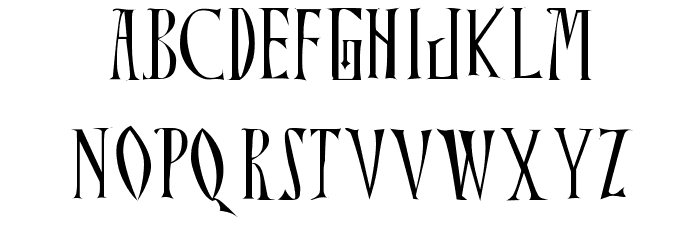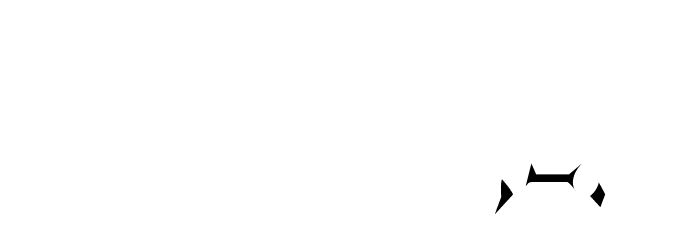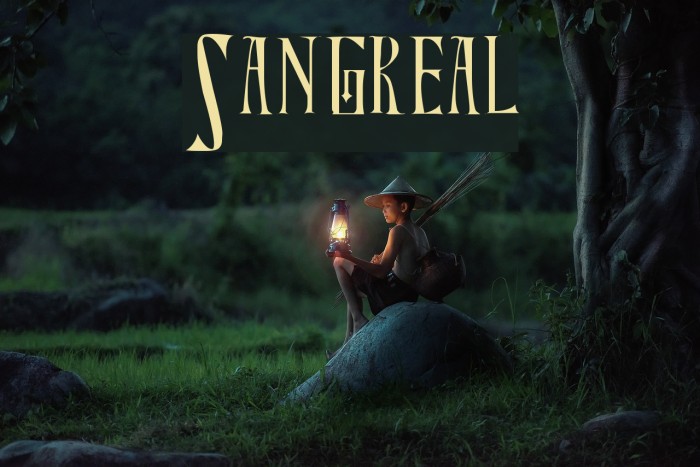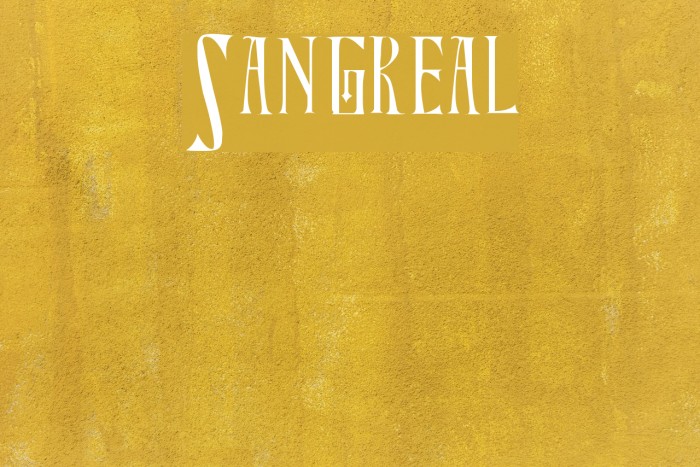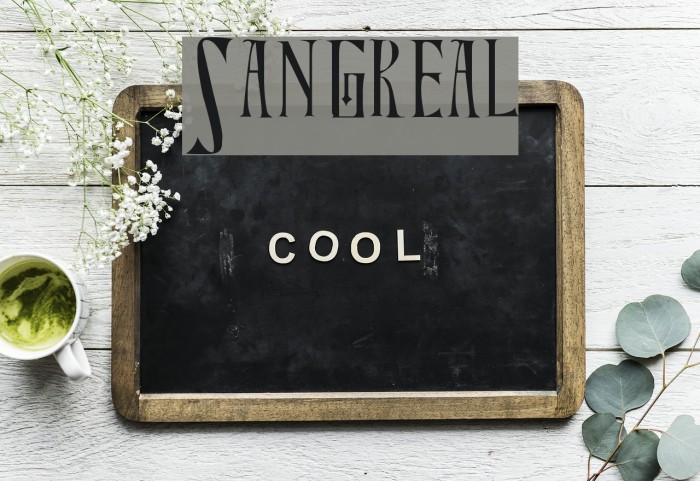
Sangreal Font
This font features a unique and artistic design with elongated, sharp serifs and a medieval-inspired aesthetic. The characters are tall and narrow, with a distinct flair that adds a sense of elegance and mystery. The uppercase letters are particularly striking, with intricate details and angular forms that create a dramatic visual impact. The lowercase letters maintain the same stylistic elements, ensuring consistency throughout the typeface. The numbers and special characters are designed to complement the overall style, making this font suitable for creative and decorative purposes.
A medieval-inspired font with elongated serifs and dramatic, angular forms.
- Proposed Projects: Ideal for fantasy book covers, historical event posters, or themed invitations.
- Overall Style: Vintage